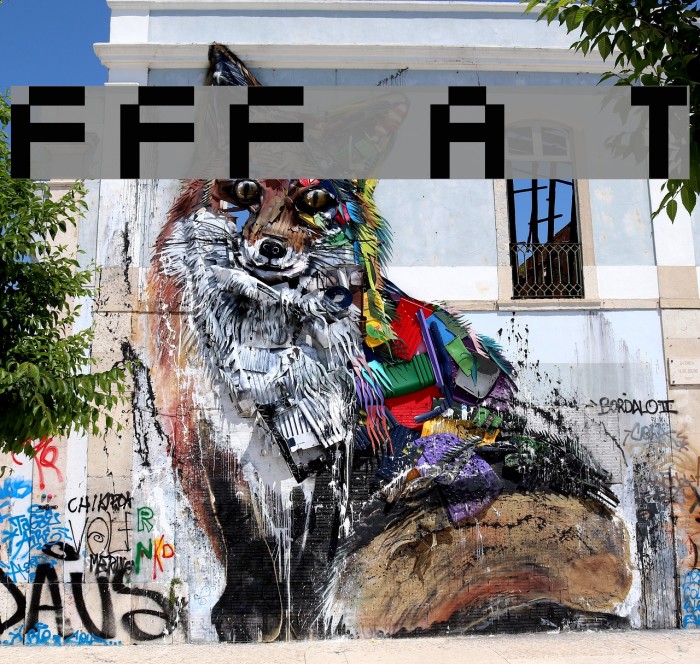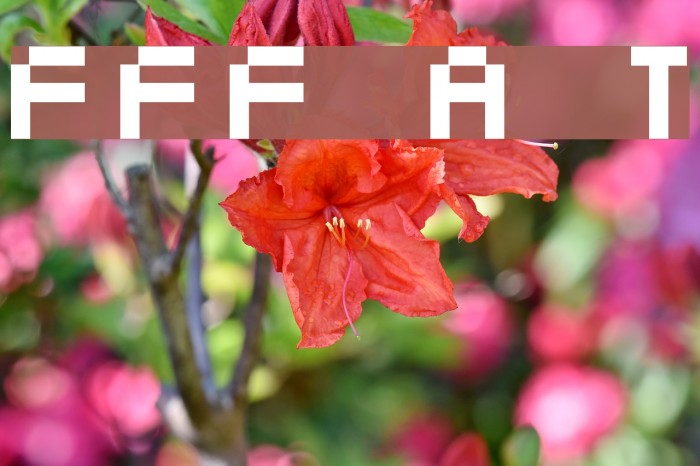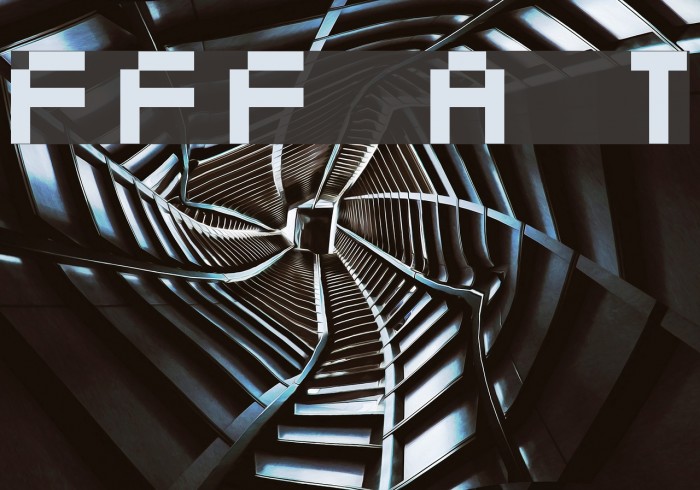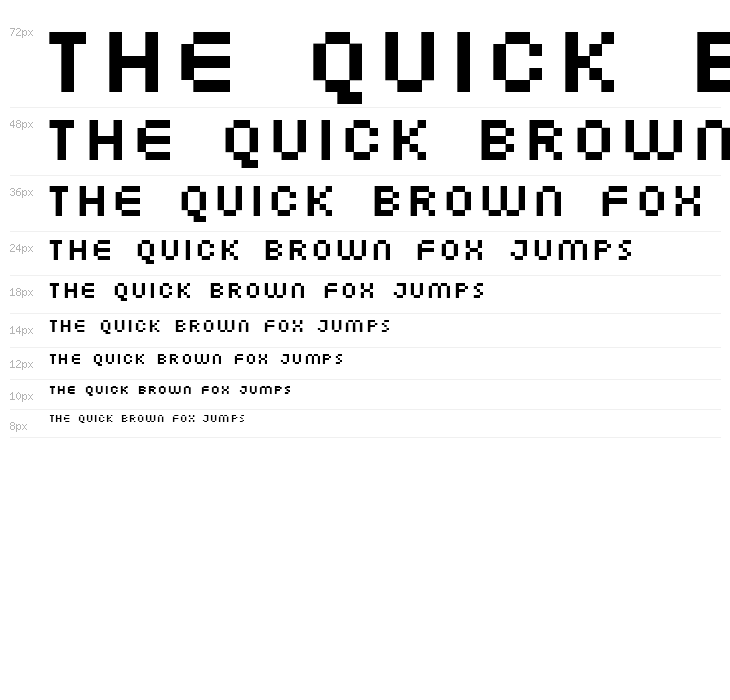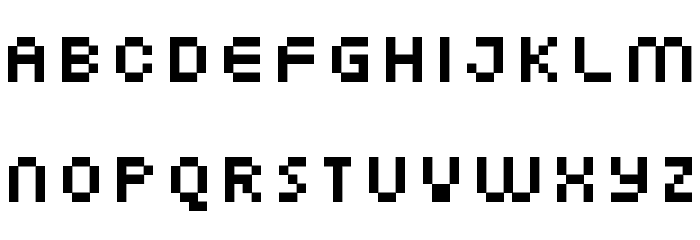
FFF Atlantis Trial Font
FFF Atlantis Trial Description
This font features a pixelated, blocky design reminiscent of early digital displays and video games. Each character is constructed with a uniform grid-like structure, giving it a distinctly retro and digital aesthetic. The uppercase and lowercase letters maintain a consistent height, contributing to a monospaced appearance. The geometric shapes and sharp angles create a sense of precision and clarity, making it ideal for projects that require a nostalgic or tech-inspired look. The font's simplicity and uniformity make it highly legible, even at smaller sizes.